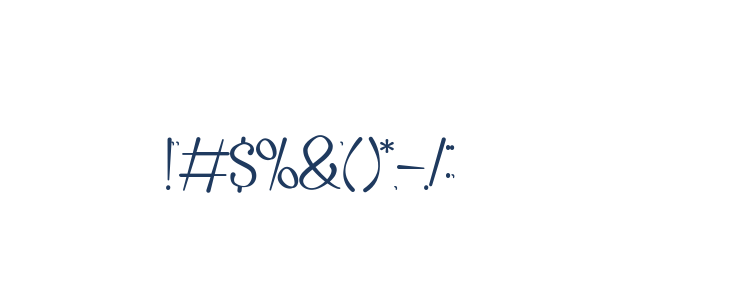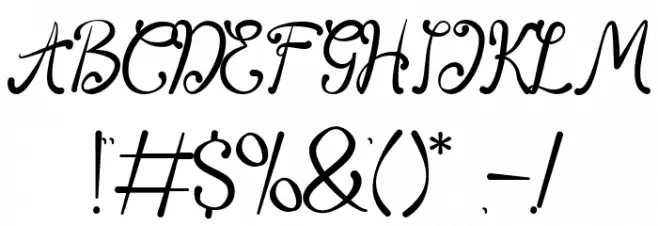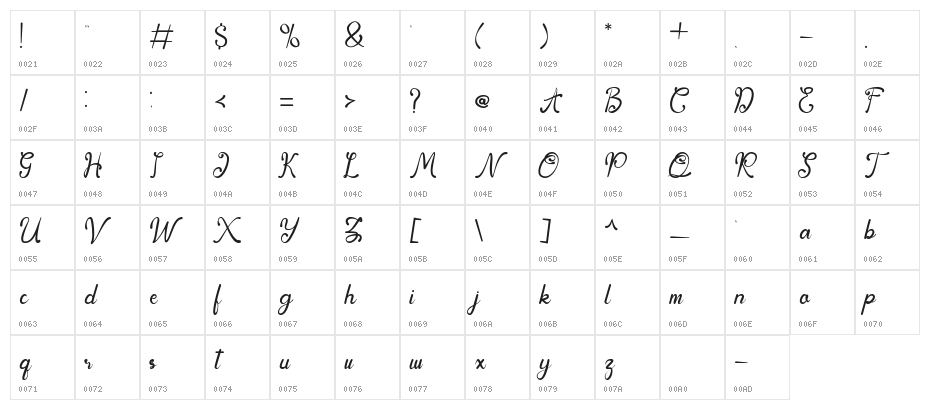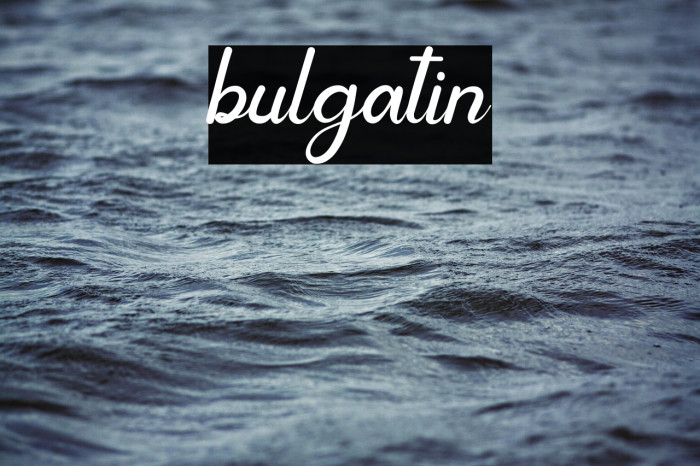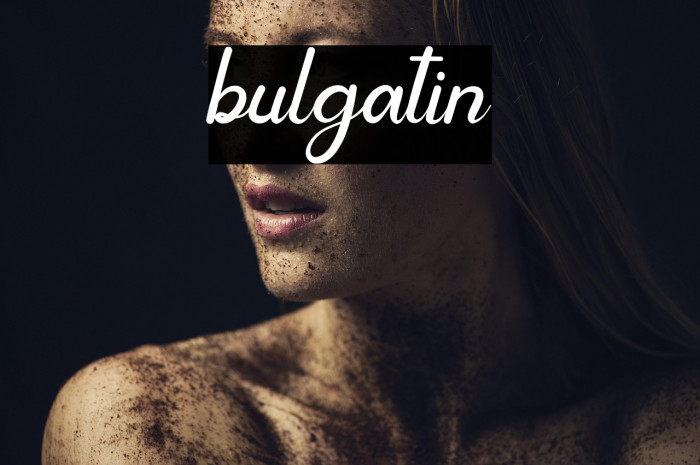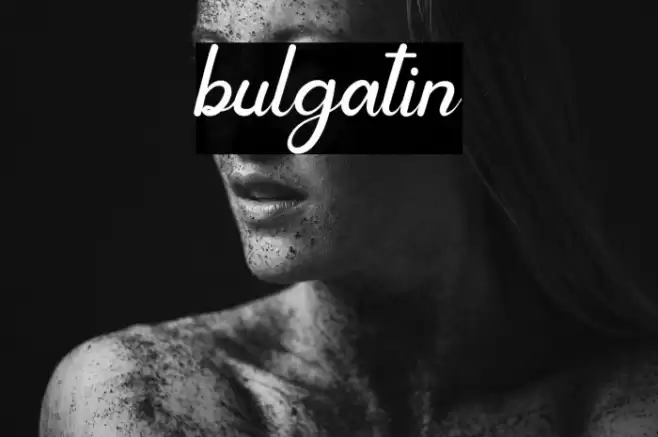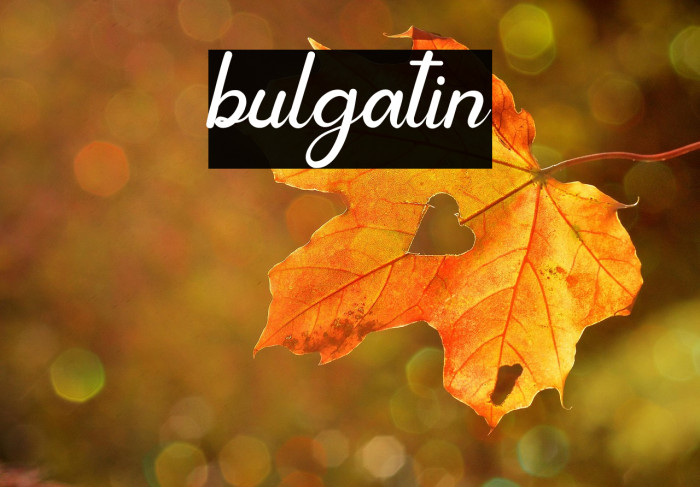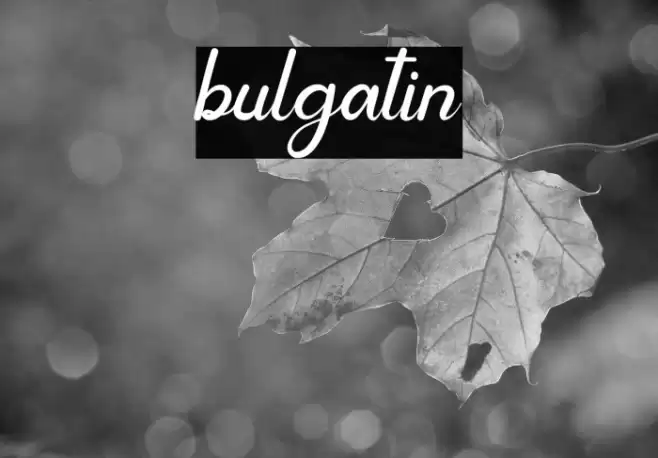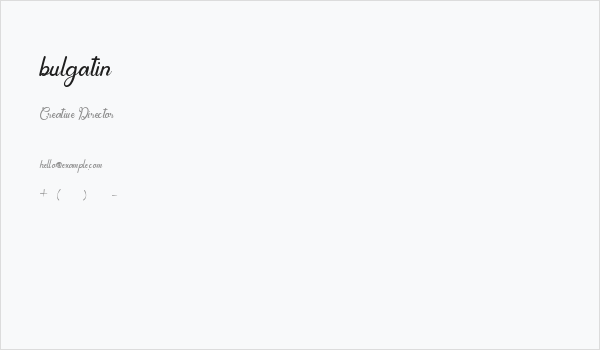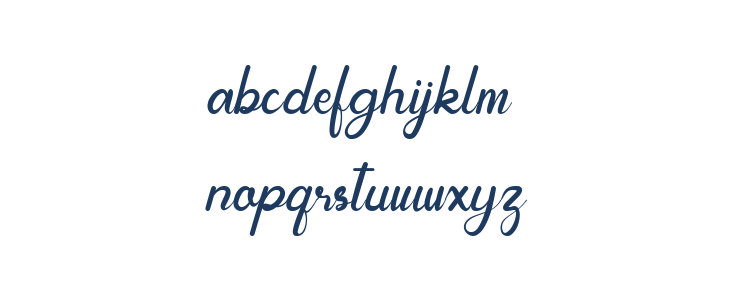
bulgatin Font
bulgatin Description
This elegant script font features a flowing, cursive style with intricate loops and flourishes. The uppercase letters are ornate, with sweeping lines that give a sense of movement and grace. The lowercase characters maintain this fluidity, offering a harmonious blend of curves and angles. The numbers and special characters are designed with the same attention to detail, ensuring consistency throughout. This font exudes a sense of sophistication and is perfect for projects that require a touch of elegance and refinement.